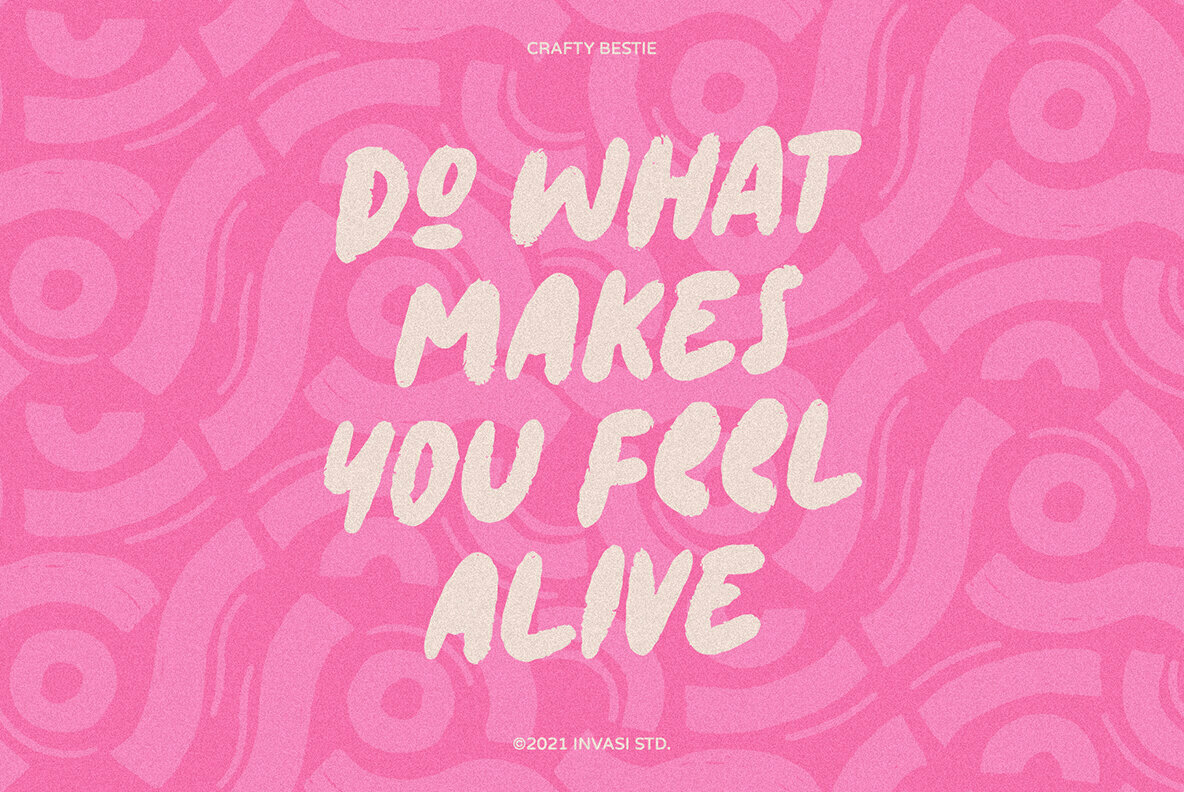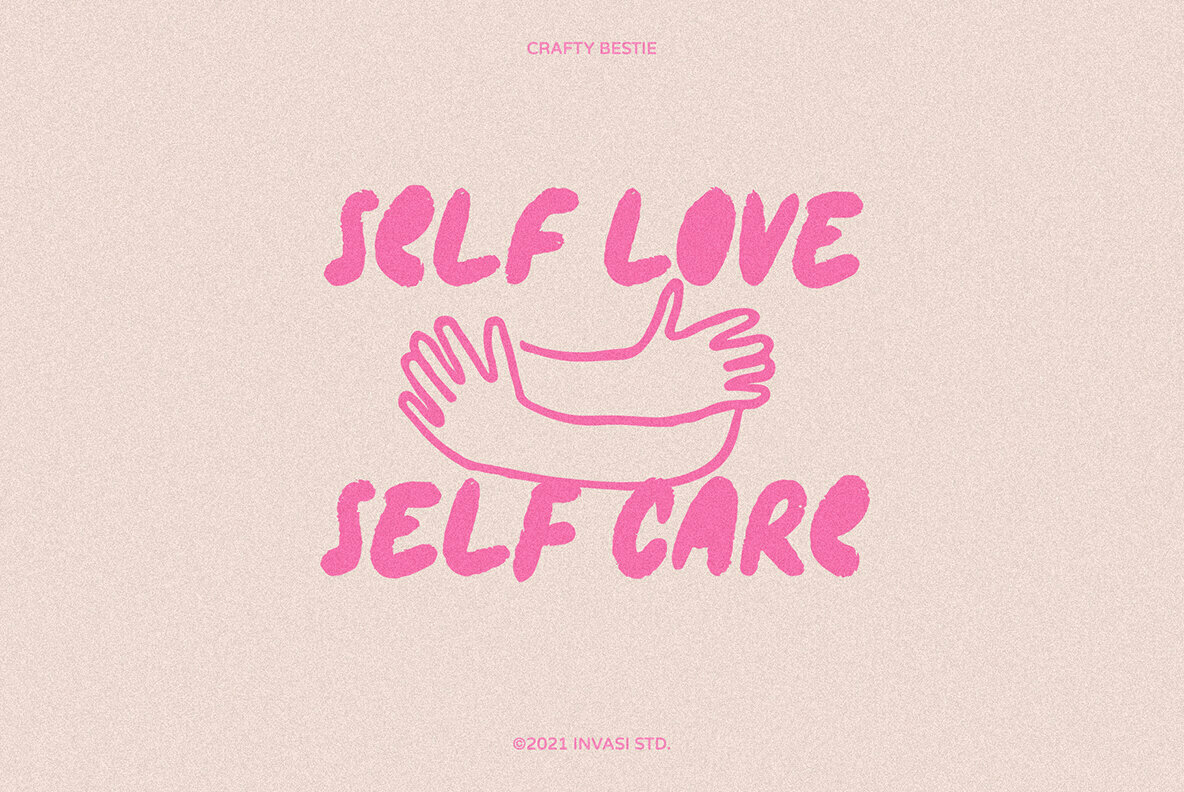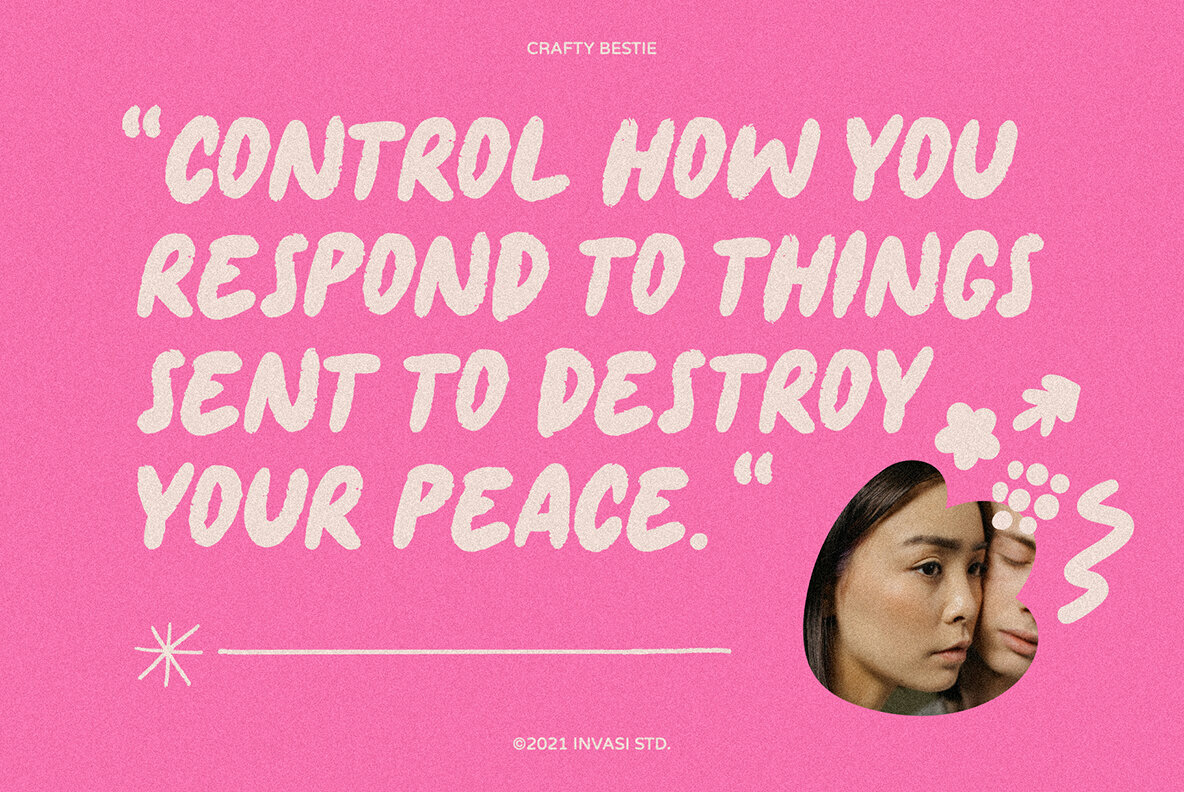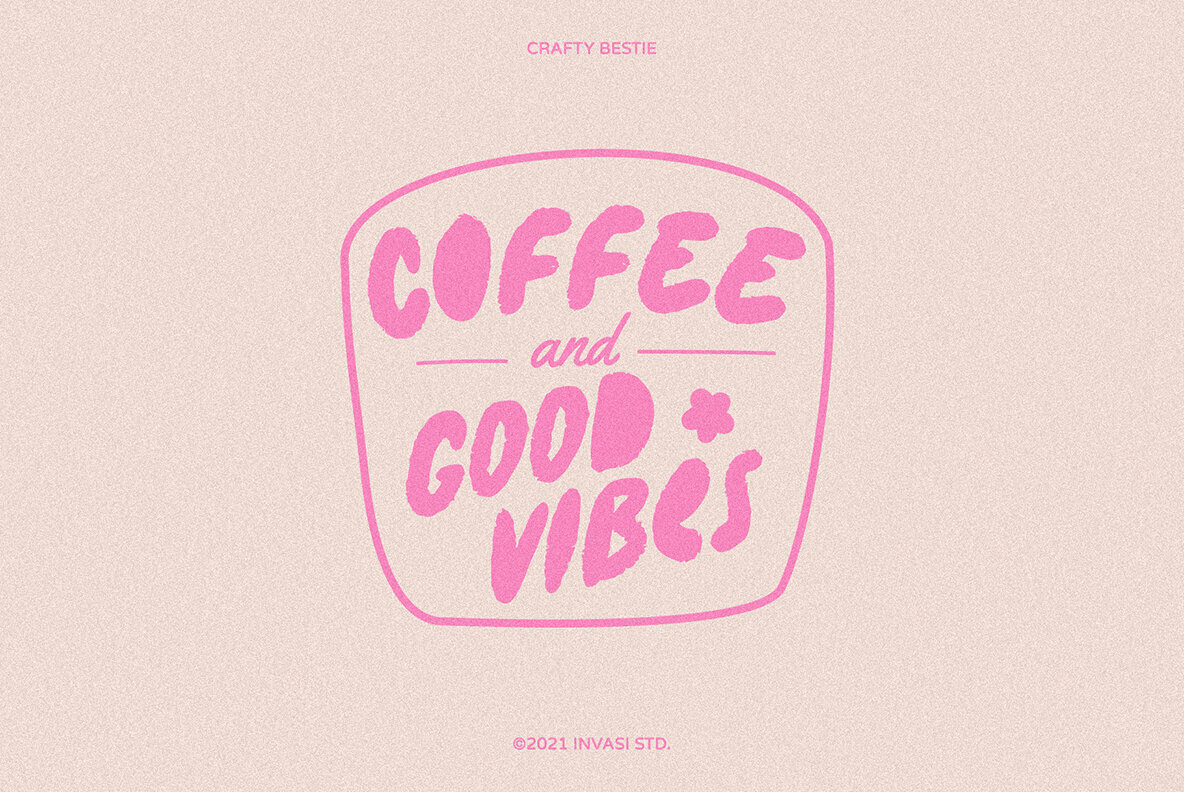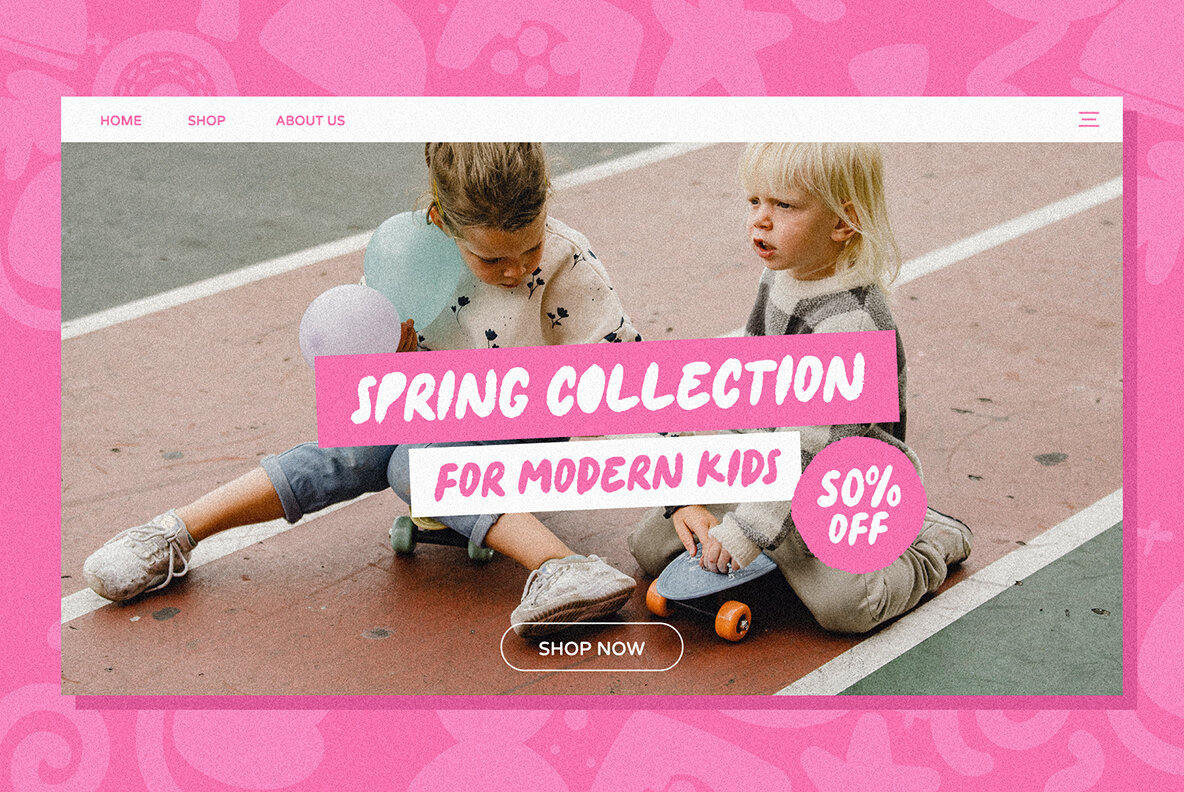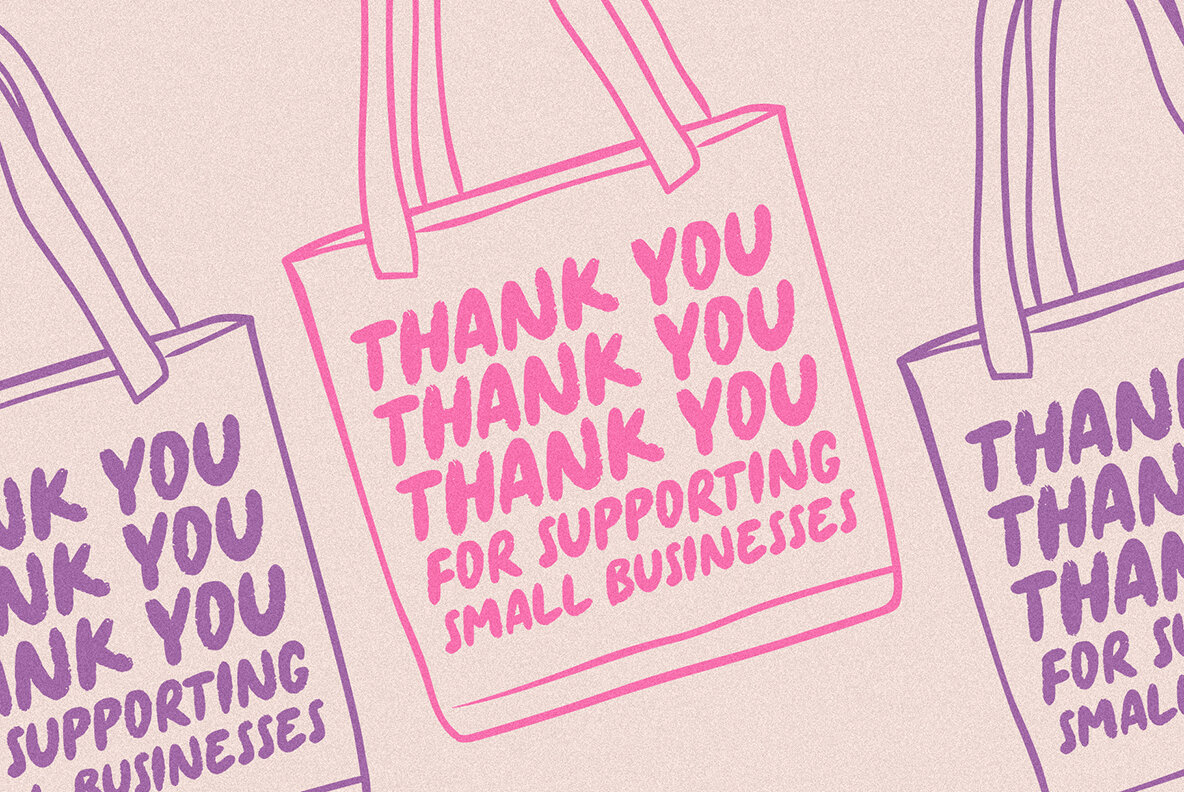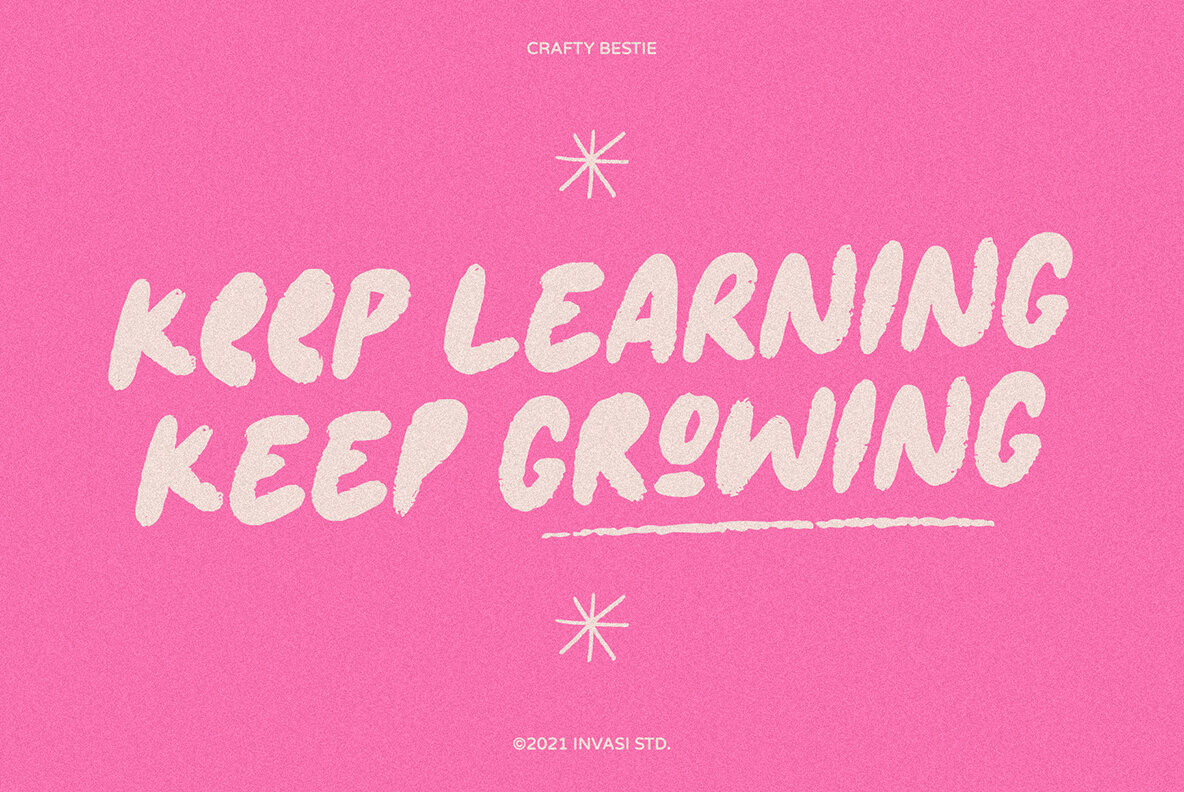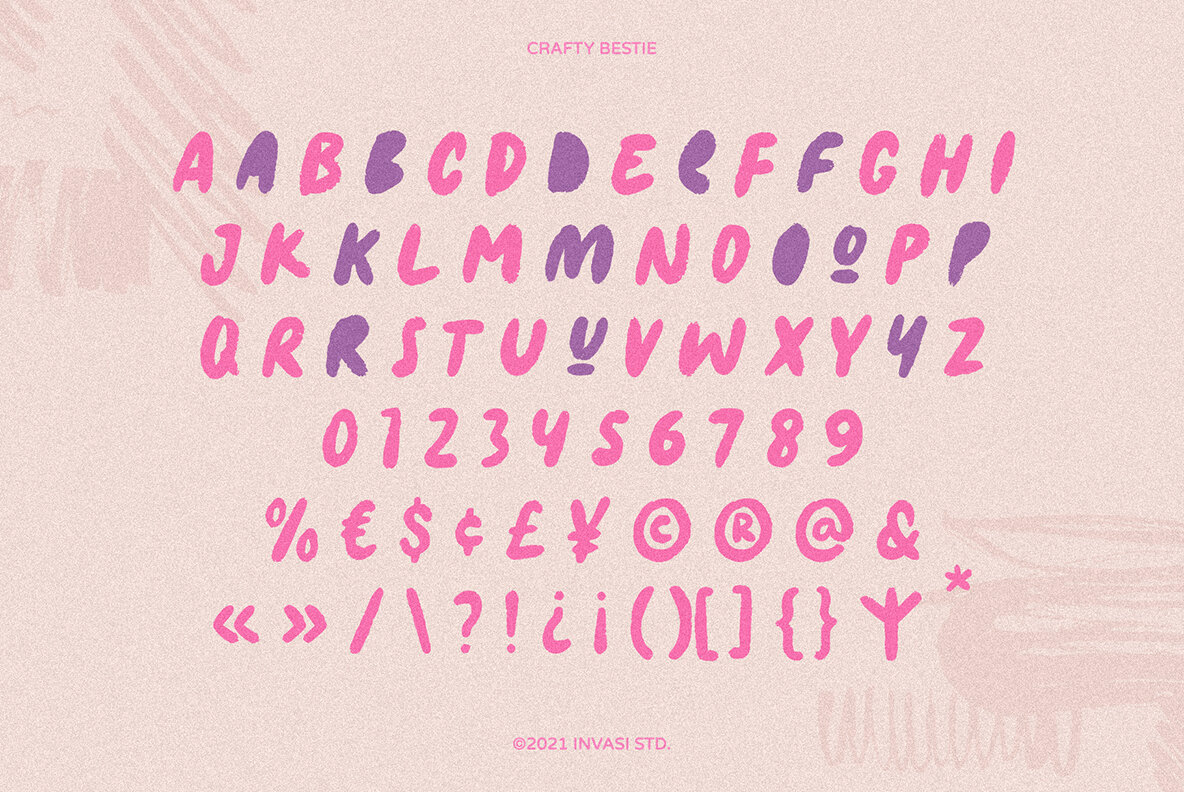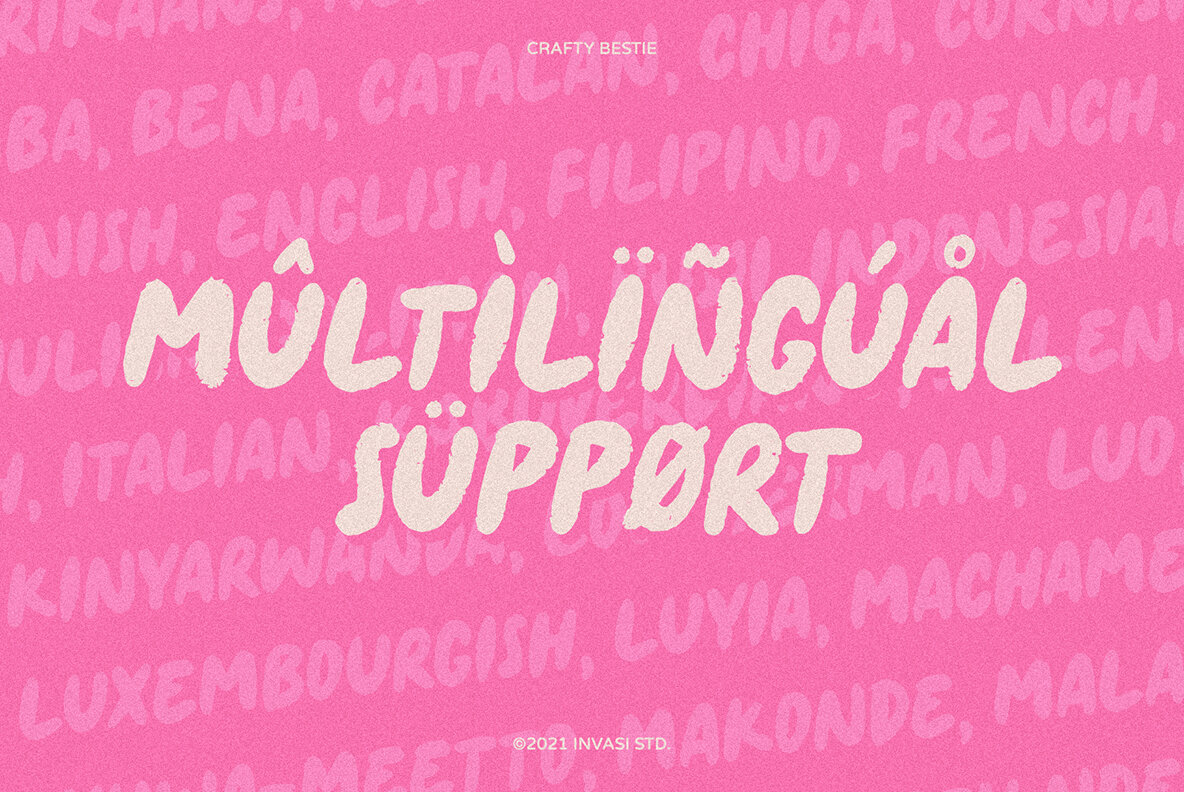
Crafty Bestie Font
Crafty Bestie
Crafty Bestie brings a whimsical charm to any branding or packaging project with its unique blend of hand-drawn style and brush texture. This display font feels both personal and engaging, making it ideal for creatives looking to add a playful touch to their designs. Features:Crafty Bestie: Hand-Drawn Playful Display Font